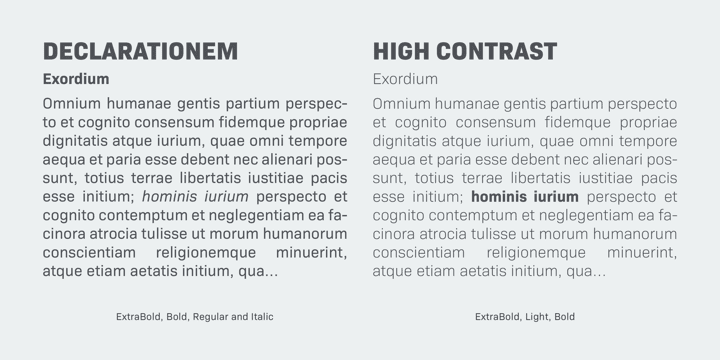
Bio Sans Font Family
Bio Sans is a text sans-serif family that is extremely neutral. Ryoichi Tsunekawa created and shared the font. There are six weights in the family, ranging from ExtraLight to ExtraBold and corresponding Italics. This family’s core philosophy is the same as Bebas Neue, our most popular free font used worldwide, namely Neutral, Natural, Minimal, Harmless, Super-flat, Transparent, and Legible.
Their letterform’s basic skeleton was built geometrically, and the sophisticated design provides them universality, neutrality, and a sense of unity for usage in all media and for all purposes, and their huge x-heights make this family legible and readable even on small screens. Bio Sans is a font family that can be used for both personal and commercial purposes. Starting with uppercase, lowercase, Numeric, and certain Special character and alternatives, fonts are available. The beautiful font can be easily converted to a web font at any moment. The Typeface is available in two different formats: OTF and TTF.
Bio Sans Family Font is ideal for logos, branding, invitations, stationery, wedding designs, logos, business cards, covers, t-shirts, social media posts, and more. It will also be utilized to generate stunning images and text in a variety of colors and styles. It’s perfect for use in presentations that need to make a unique and happy impact, and it can maintain the viewer’s interest in text thanks to a sense of movement throughout each character.
| Name | Bio Sans Font Family |
| Style | Sans-Serif. |
| Designer | Ryoichi Tsunekawa |